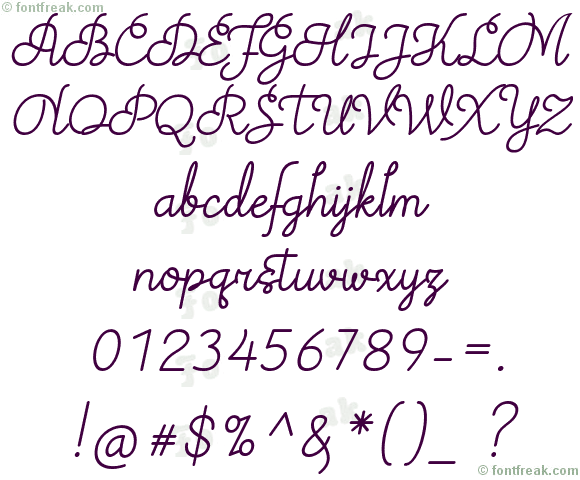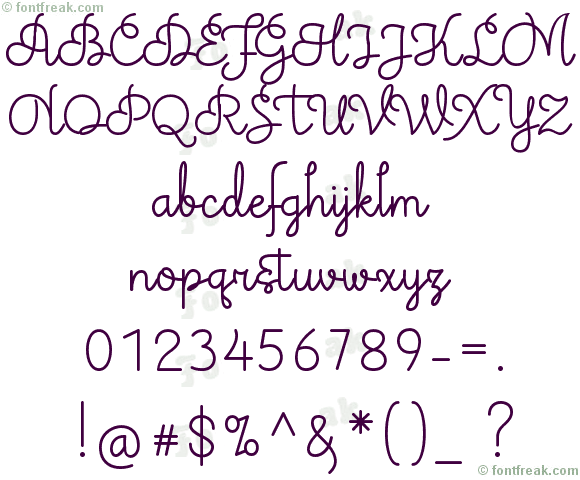
Theodista Decally Italic
Theodista Decally
About Theodista Decally Italic
The Theodista Decally Italic font by Situjuh Nazara is a beautifully crafted script typeface that embodies elegance and sophistication. Released in 2015, this freeware font combines flowing, cursive strokes with a distinctive italic flair, making it a versatile choice for a variety of design projects. The font features a moderate stroke weight with a harmonious balance of contrast, allowing it to maintain clarity while offering a decorative touch. Its graceful curves and connected letters provide a sense of movement, while the generous spacing enhances readability, making it suitable for both print and digital applications.
Theodista Decally Italic is particularly well-suited for wedding invitations, where its romantic style can convey a sense of intimacy and celebration. It also shines in branding materials for small businesses, adding a personal touch to logos and promotional items. Additionally, this font can elevate restaurant menus, giving them an inviting and upscale feel, as well as enhancing event posters that require a touch of elegance. Graphic designers and content creators will find this font an invaluable asset, as it effortlessly captures attention and evokes emotion.
What sets Theodista Decally Italic apart is its ability to blend artistry with functionality. This font not only serves as a visual element but also communicates the essence of the message it conveys, making it a perfect choice for projects that require a personal and artistic touch. Whether you are looking to enhance your creative work or seeking the ideal font for your next project, Theodista Decally Italic font free download offers an opportunity to elevate your designs while maintaining a professional aesthetic.